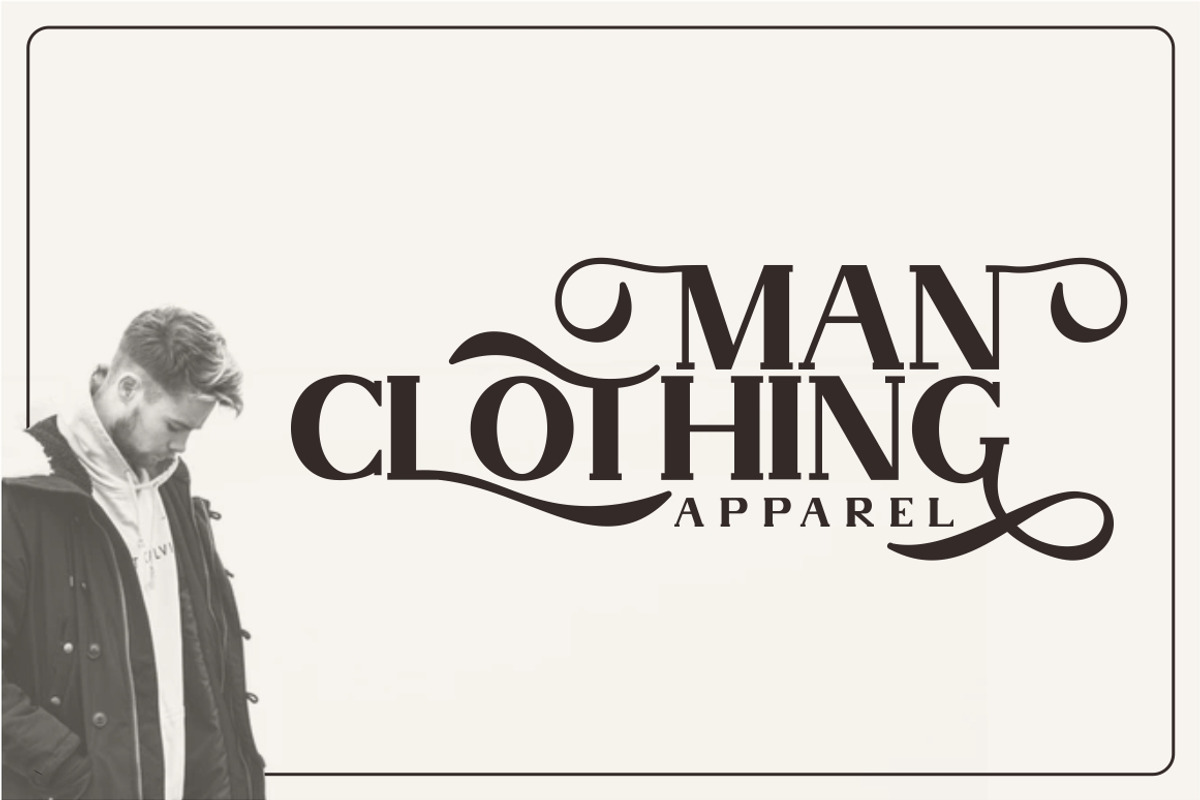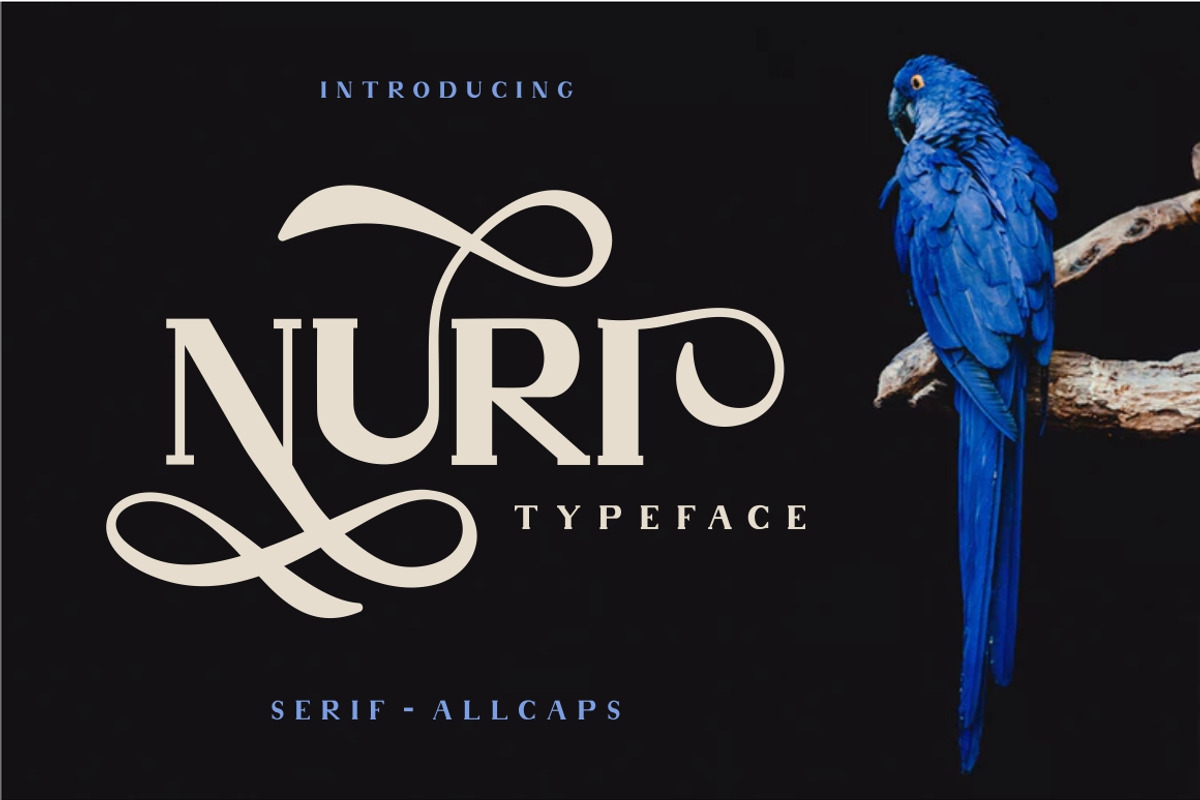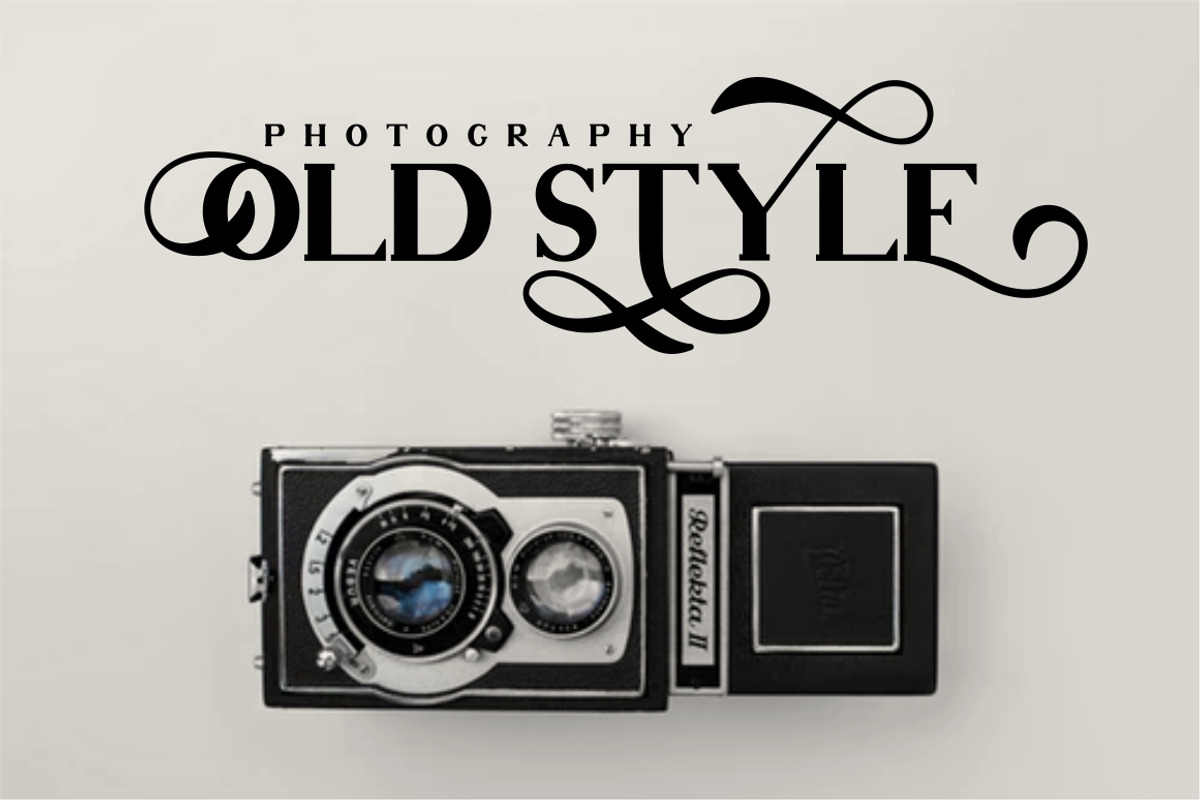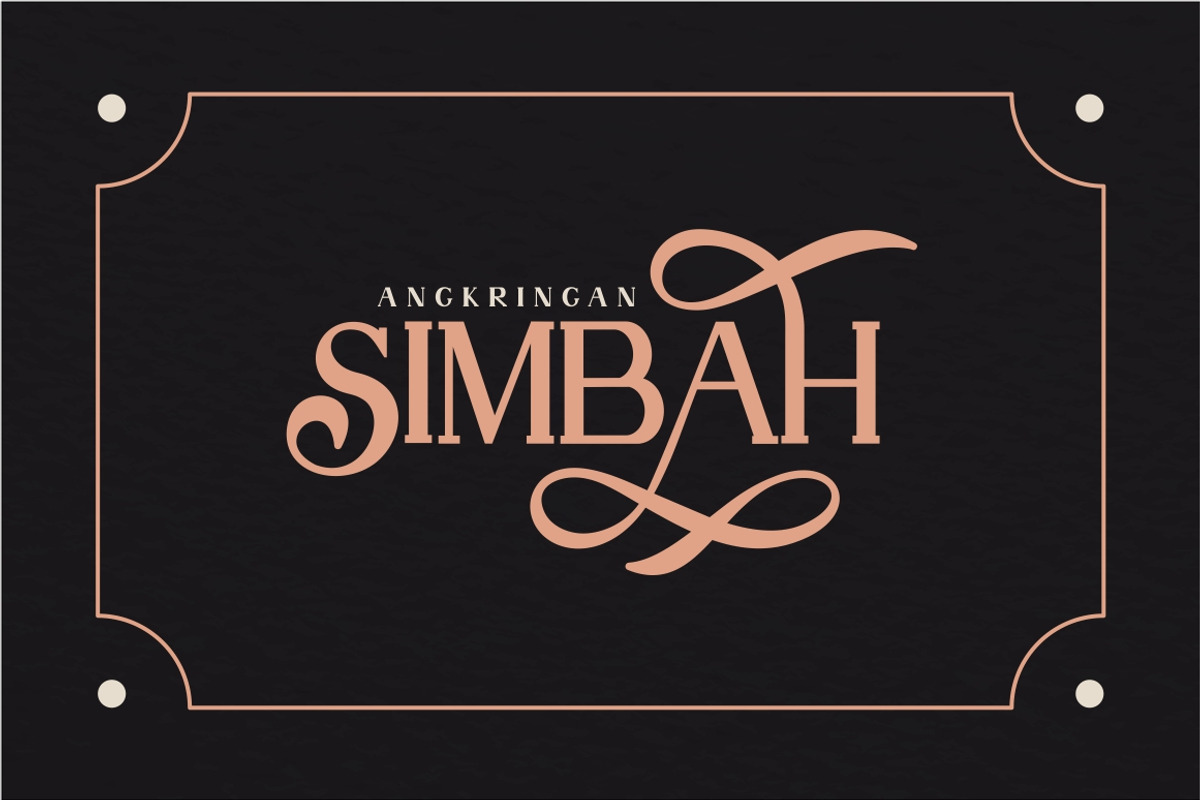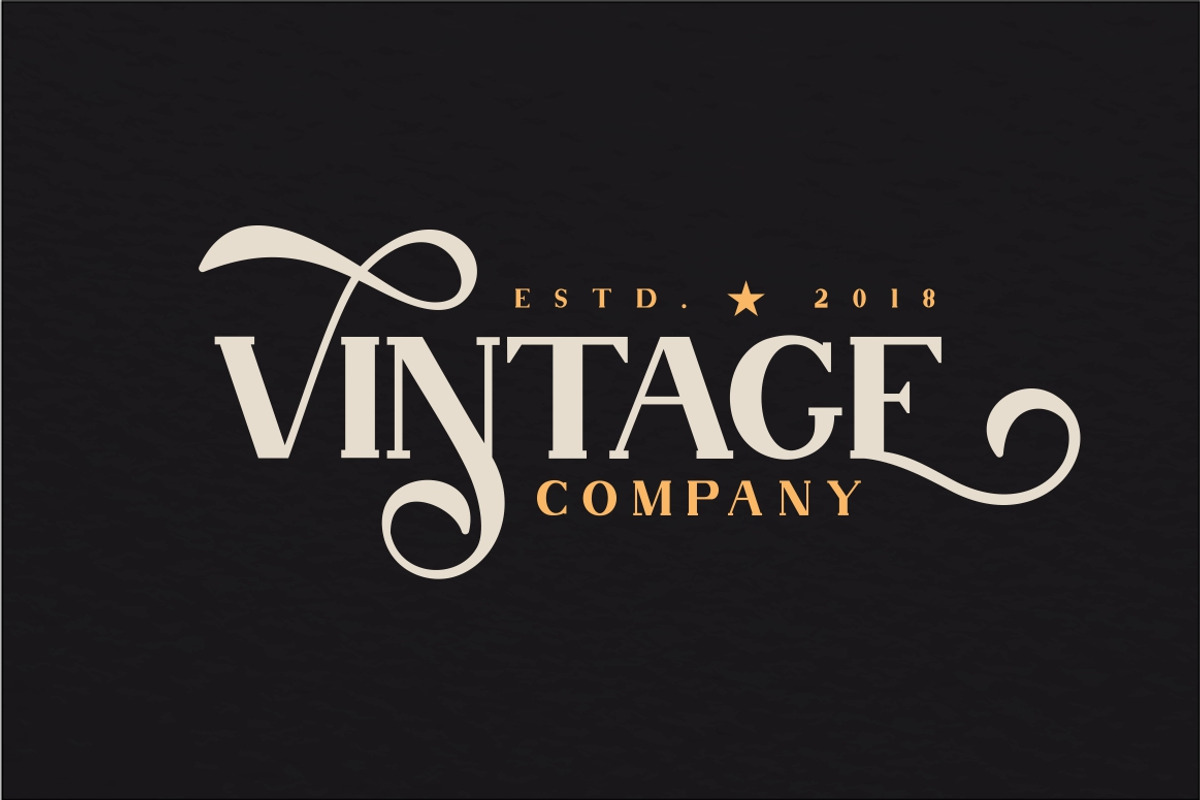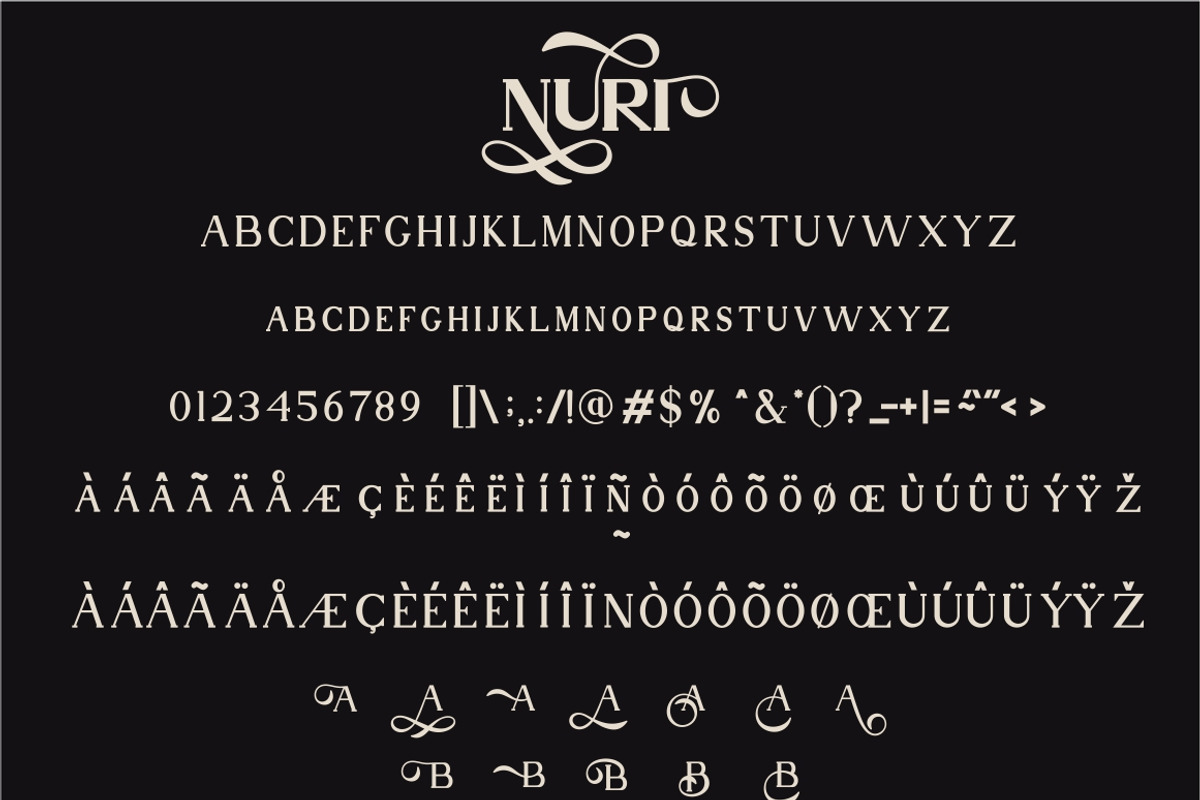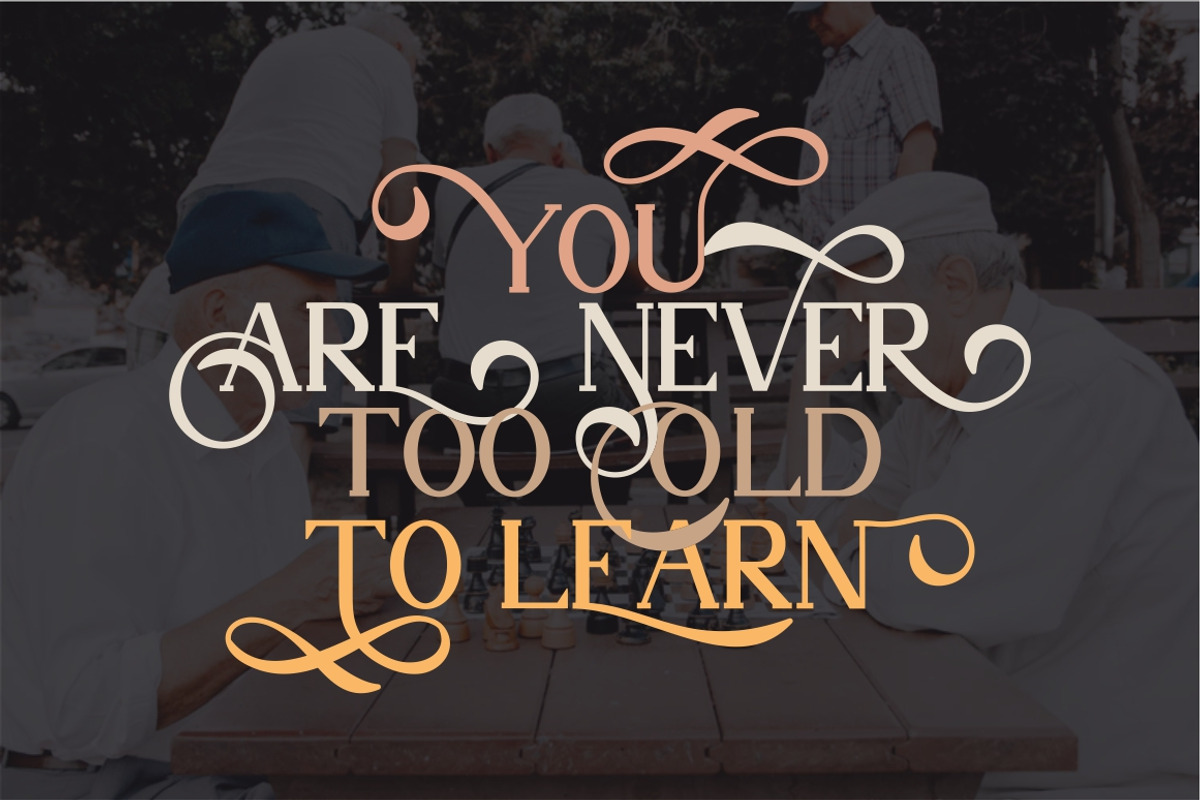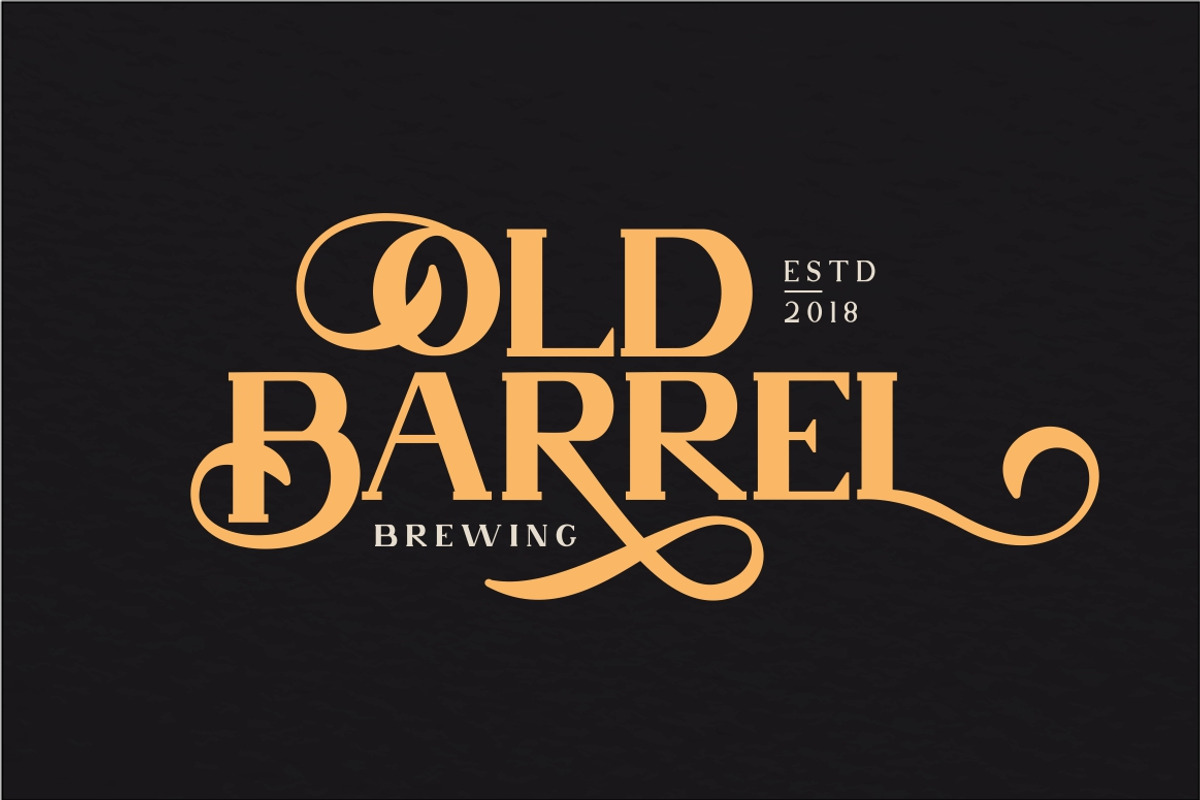
Nuri Font
Nuri is an classic and elegant display typeface. Allcaps characters, with lots of alternatives, so you can combine according to your creativity. Nuri available in Regular and Bold Version. Suitable for logos, Tshirt,handwritten quotes, product packaging, tittle header, poster, merchandise, social media, labels, branding & greeting cards.
- Allcaps characters, with lots of alternatives, so you can combine according to your creativity.
- Nuri Regular
- Nuri Bold
Why Nuri Font is worth a look
Nuri Font by PutraCetol Studio fits naturally into Branding, posters, packaging, typography.